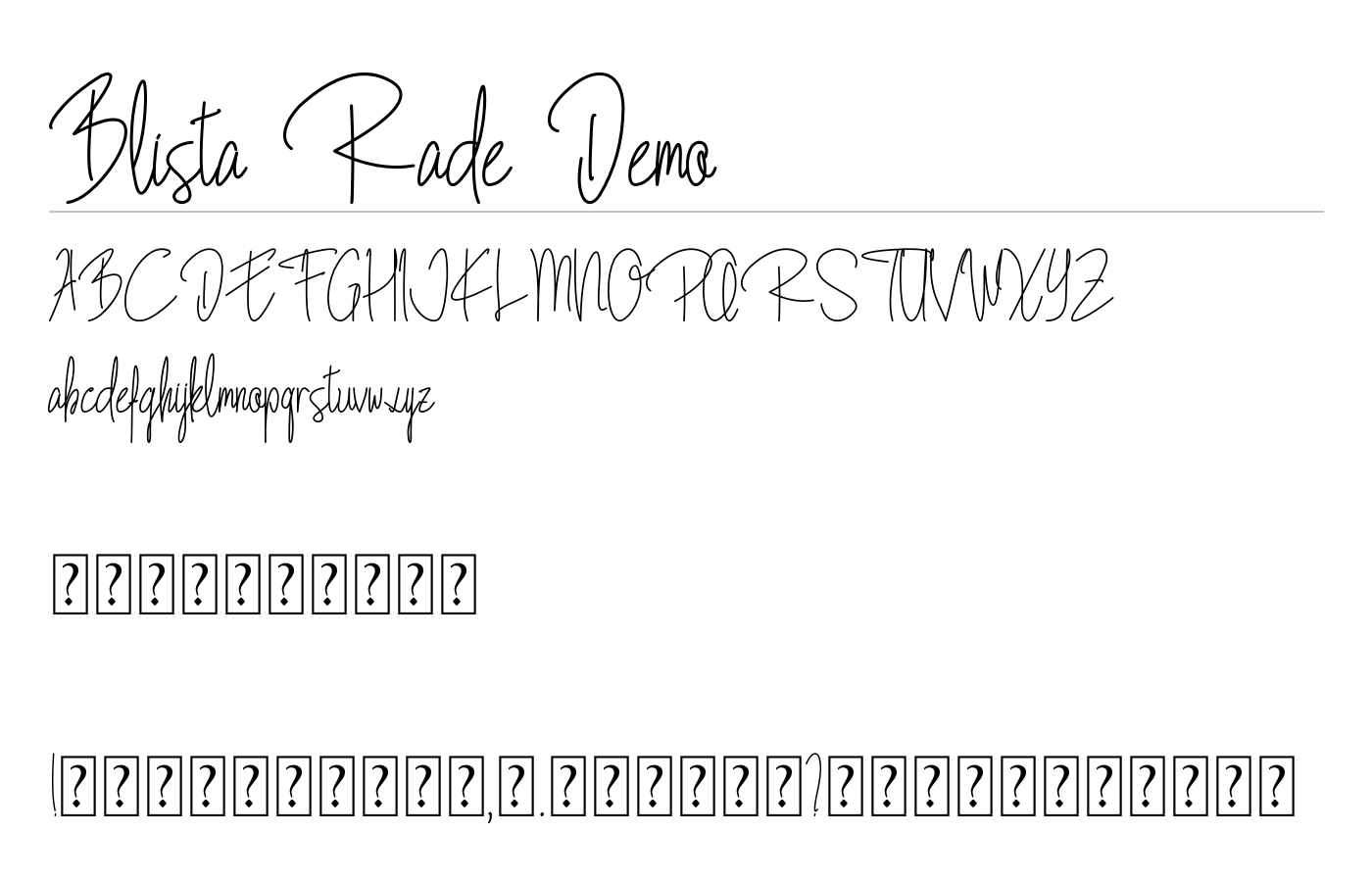
Blista Rade Demo is a delicate, handwritten script font characterized by its thin, flowing strokes and tall, narrow letterforms. It exudes a casual yet elegant personality, making it ideal for creative projects, personal branding, and invitations where a touch of individuality and refined simplicity is desired. Its light weight and airy spacing give it a graceful and modern appearance best suited for headlines and decorative text rather than dense body copy.
Blista Rade Demo Font
About Blista Rade Demo Font
| Font family | Blista Rade Demo Font |
| Designer | Eko Nurcahyo |